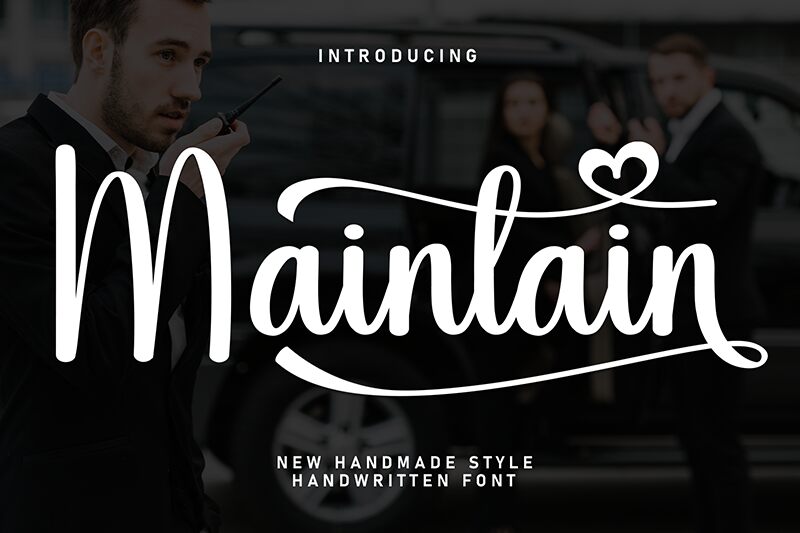
Maintain
Maintain font by Andi Moz is a free handwritten typeface designed with smooth and elegant characters. Its casual script style gives it an inviting and modern appeal that’s suitable for various platforms. A font as good as this one must be utilized every way one can, so don’t miss out on downloading this resource, and adding it to your font library.
Use it for business card designs, creative typography T-shirts, advertisements, visual identity designs, branding projects and logo designs among others. Add some unusual appeal to books (titles or covers), posters and flyers that need prominent text for emphasis or get busy with some personal work like greeting cards meant for loved ones.